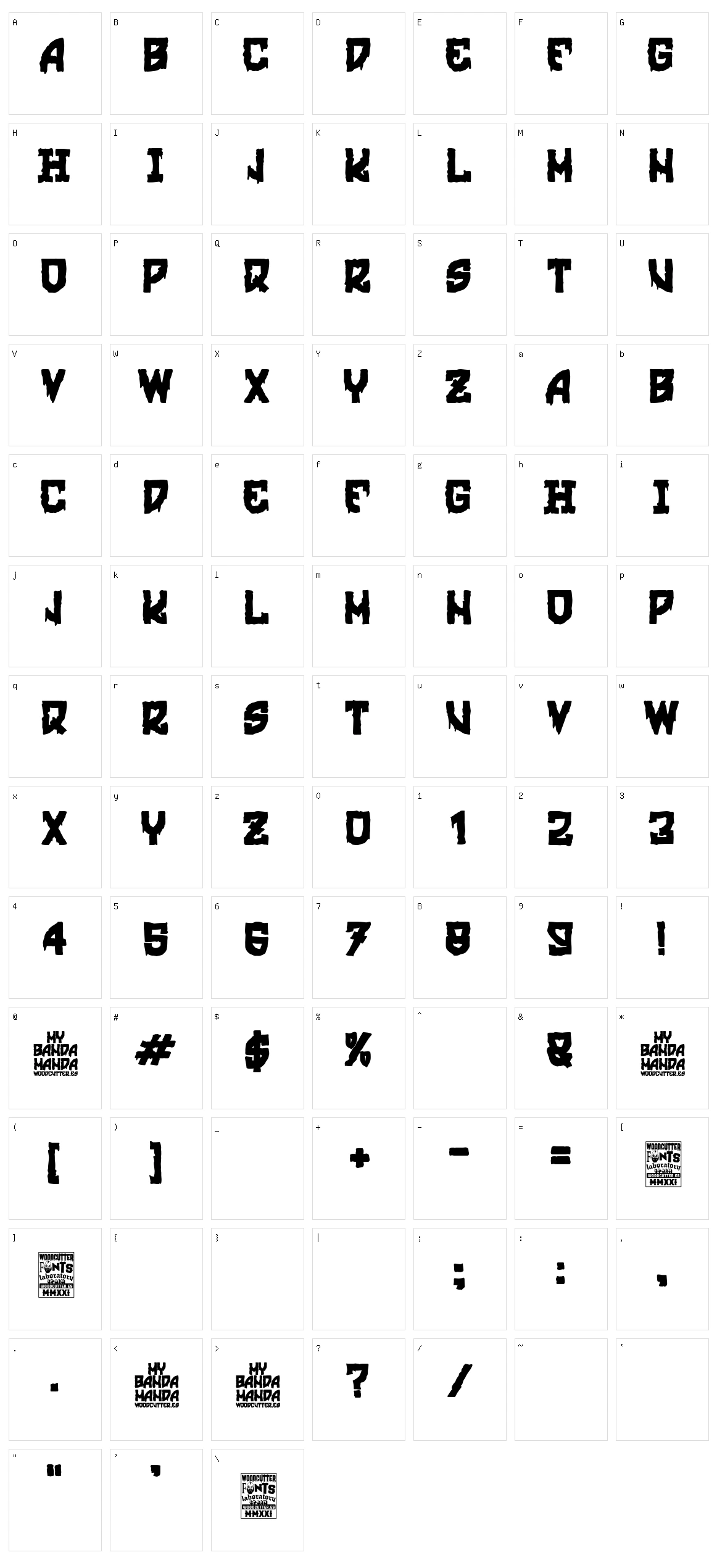
The free font Mi Banda Manda is carefully designed by Woodcutter, showcasing a thoughtful balance of creativity and usability and falls under the Horror font style. When you download the ZIP file, it contains only 106.39 KB of font files, making it lightweight and quick to download. Please review the license details below to understand permitted usage and distribution rights. If license information is not available, we recommend using this font for personal projects only or contacting the author directly for commercial usage permissions.